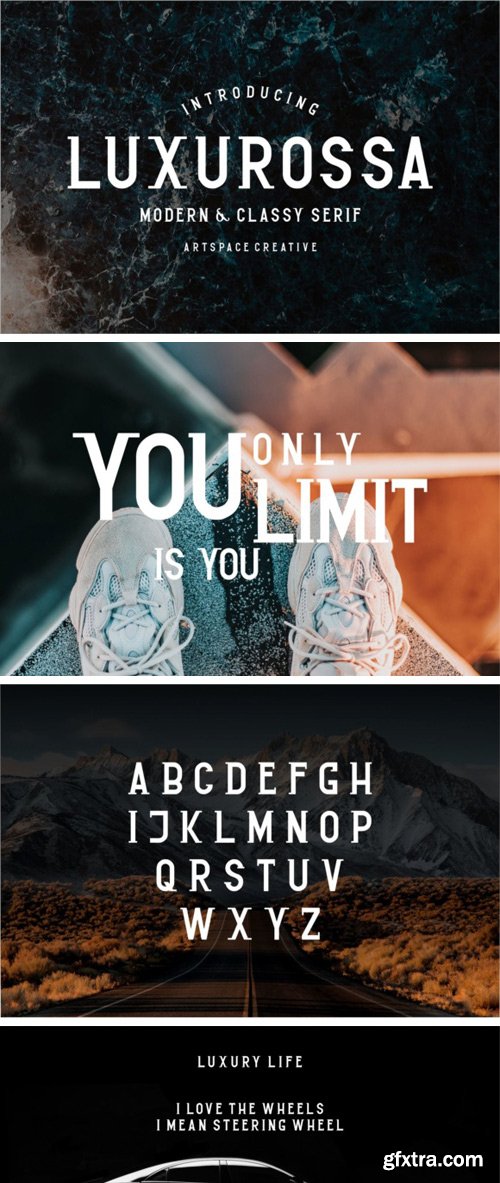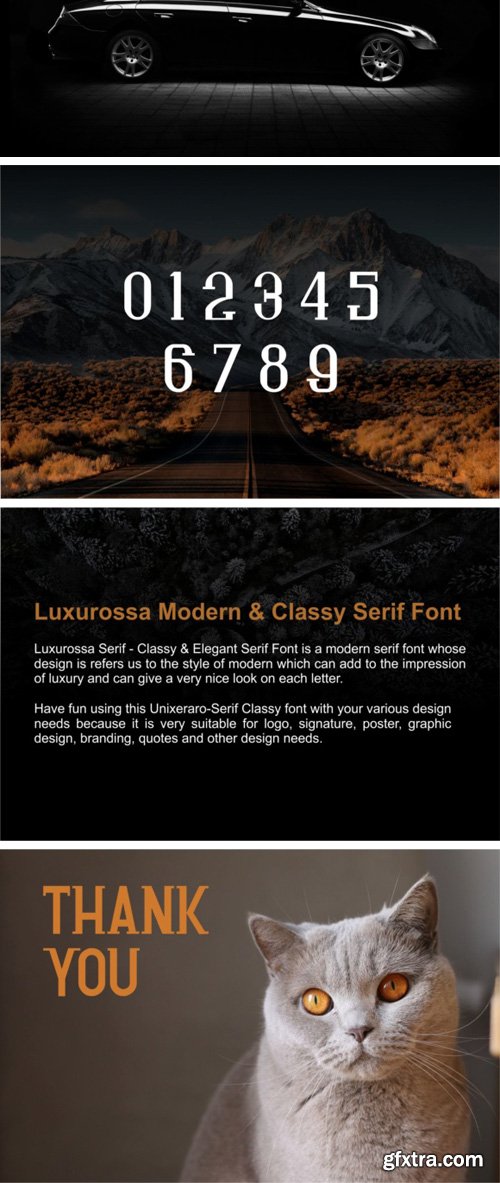
uxurossa Serif - Classy & Elegant Serif Font is a modern serif font whose design is refers us to the style of modern which can add to the impression of luxury and can give a very nice look on each letter.